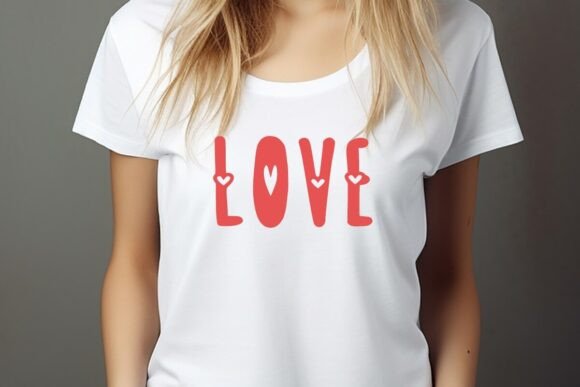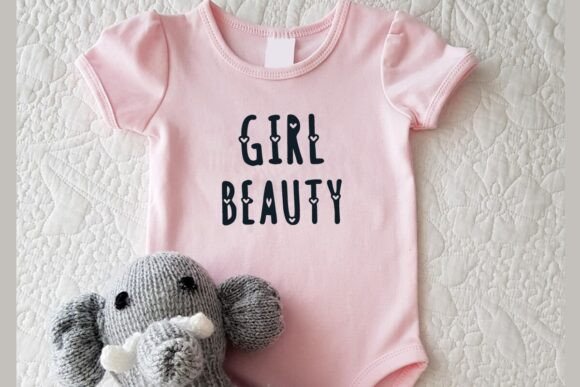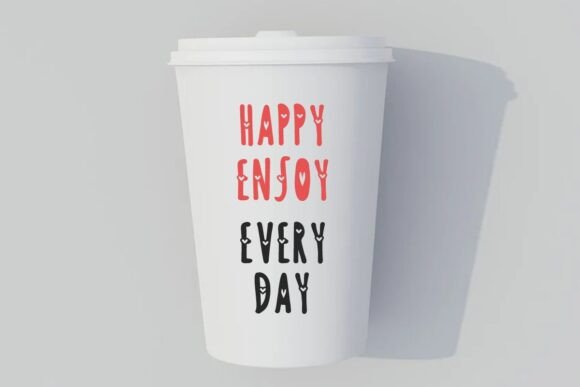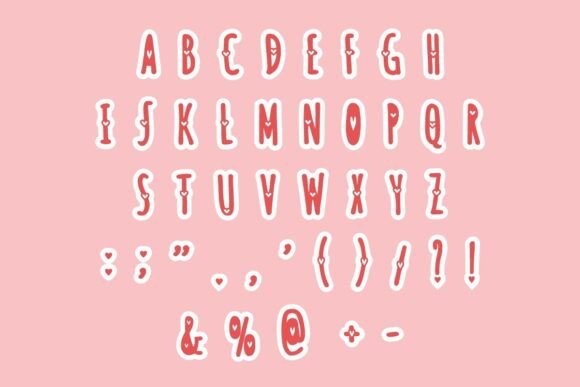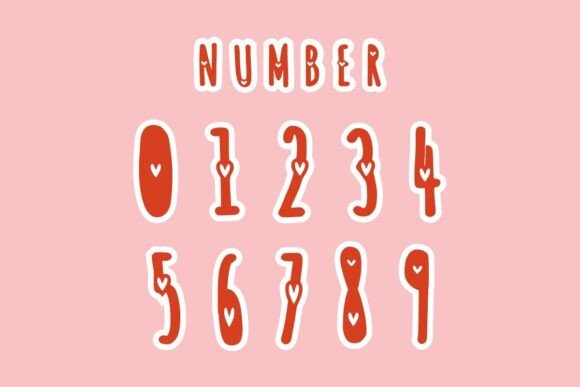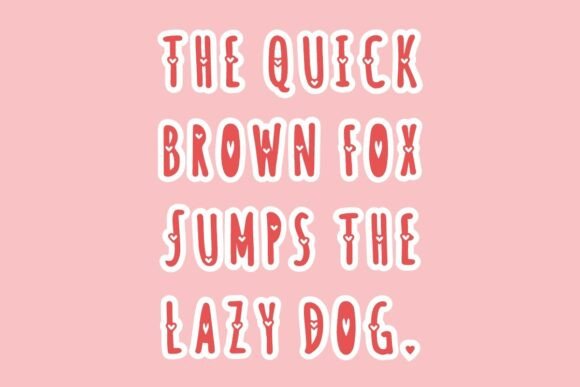
Introduction to Love Mother Font
Have you ever stumbled upon a font that perfectly captures the playful essence of your creative project? For many designers, this moment is a game-changer. It’s when everything falls into place, and your vision starts to take shape. That’s exactly what happens when you discover the Love Mother Font.
This adorable, informal font is more than just a design resource – it’s a breath of fresh air for your next creative project. With its simple yet charming style, the Love Mother Font is a high-quality addition to any designer’s toolkit. Whether you’re working on product packaging, invitations, or quotes, this font is sure to bring a relaxed touch to your designs.
Key Features of Love Mother Font
- High-quality design resource suitable for various creative projects, including graphic design, digital art, and publishing.
- Features a transparent background, allowing for easy layering and customization in design projects.
- Includes a range of glyphs and characters, making it suitable for use in a variety of languages and creative applications.
- Unique, hand-drawn design style that adds a touch of personality and whimsy to creative projects.
Honest Review: Love Mother Font
I recently had the chance to work with the Love Mother Font, and I must say it’s been a game-changer for my creative project. This font is perfect for any design that requires a touch of elegance and sophistication.
Here are some of the things that work well with the Love Mother Font:
- ✨ High-quality design: The font is incredibly detailed and refined, making it perfect for printing or digital use.
- ✨ Versatile: It’s suitable for a wide range of design projects, from wedding invitations to business cards.
- ✨ Transparent background: This feature allows for seamless integration with any design element, giving me the freedom to create without limitations.
- ⚠️ Limited language support: I wish the font supported more languages, but it’s still a great option for English-based projects.
- ⚠️ Not suitable for bold text: While it’s perfect for elegant text, it may not be the best choice for bold or thick font use.
Overall, I’m thoroughly impressed with the Love Mother Font. It’s a high-quality design resource that’s perfect for any creative project. With its elegant design and versatile use, it’s definitely a font I’ll be reaching for again and again.
Tips for Getting the Most Out of Love Mother Font
Use the Love Mother Font in your creative project to add a high-quality, design resource that is sure to stand out. To get the most out of it, use it in combination with other design elements, such as images and shapes. You can also use it to create a free download of your design, such as a printable or a digital wallpaper.
The Love Mother Font is commonly used in design projects that require a high-quality, elegant font. Some common use cases include wedding invitations, baby shower invitations, and other special occasion designs. The font’s transparent background makes it easy to use in designs with complex backgrounds or images.